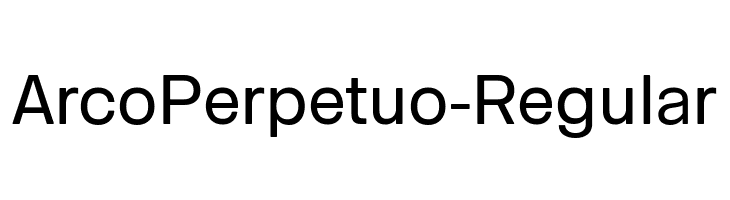
A clean, modern sans-serif typeface with uniform, well-proportioned characters.
A clean, modern sans-serif font with uniform stroke width and geometric influence.